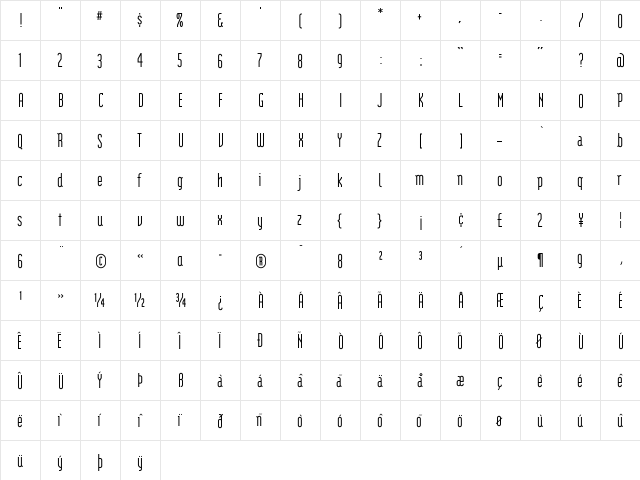
Modular Regular Font Preview
Modular Regular
Design Context for Modular Typeface
Modular takes a measured approach to typography — its balanced proportions and neutral character make it a reliable workhorse for both digital and print work.